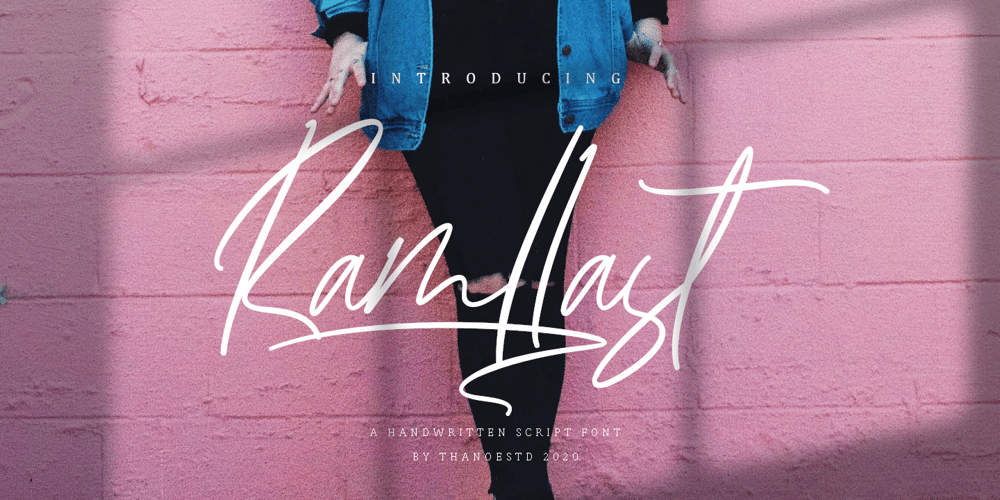
Ramllast Font Family was designed by Taupiq Nuzuli and published by Thanoestd. Ramllast contains 1 styles and family package options. INtroduction, Ramllast, This font is natural handwriting style, so if you need digital signature or natural hand writing for quotes, this is the perfect typeface for you! This font perfectly made to be applied especially in logo, and the other various formal forms such as invitations, labels, logos, magazines, books, greeting / wedding cards, packaging, fashion, make up, stationery, novels, labels or any type of advertising purpose.